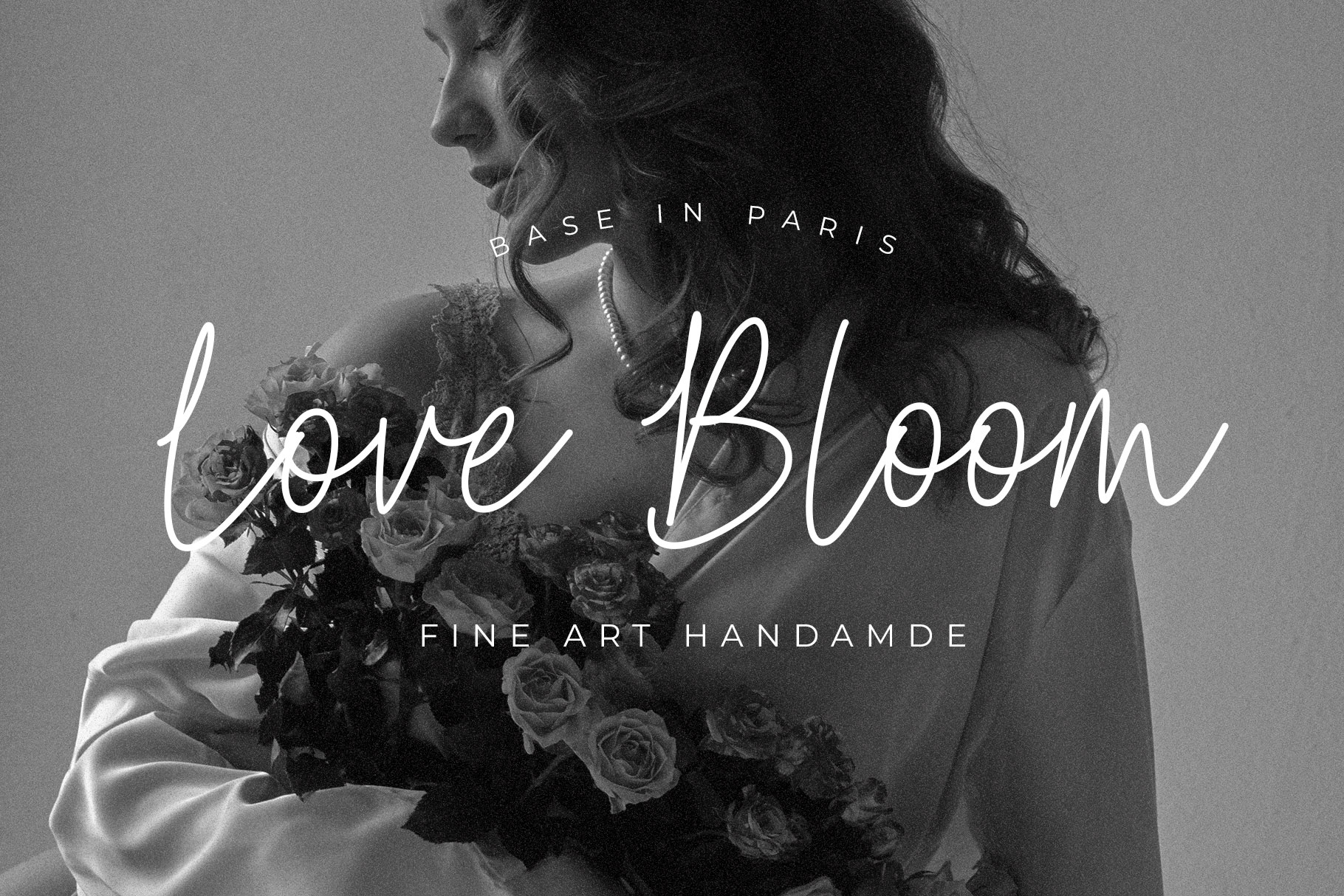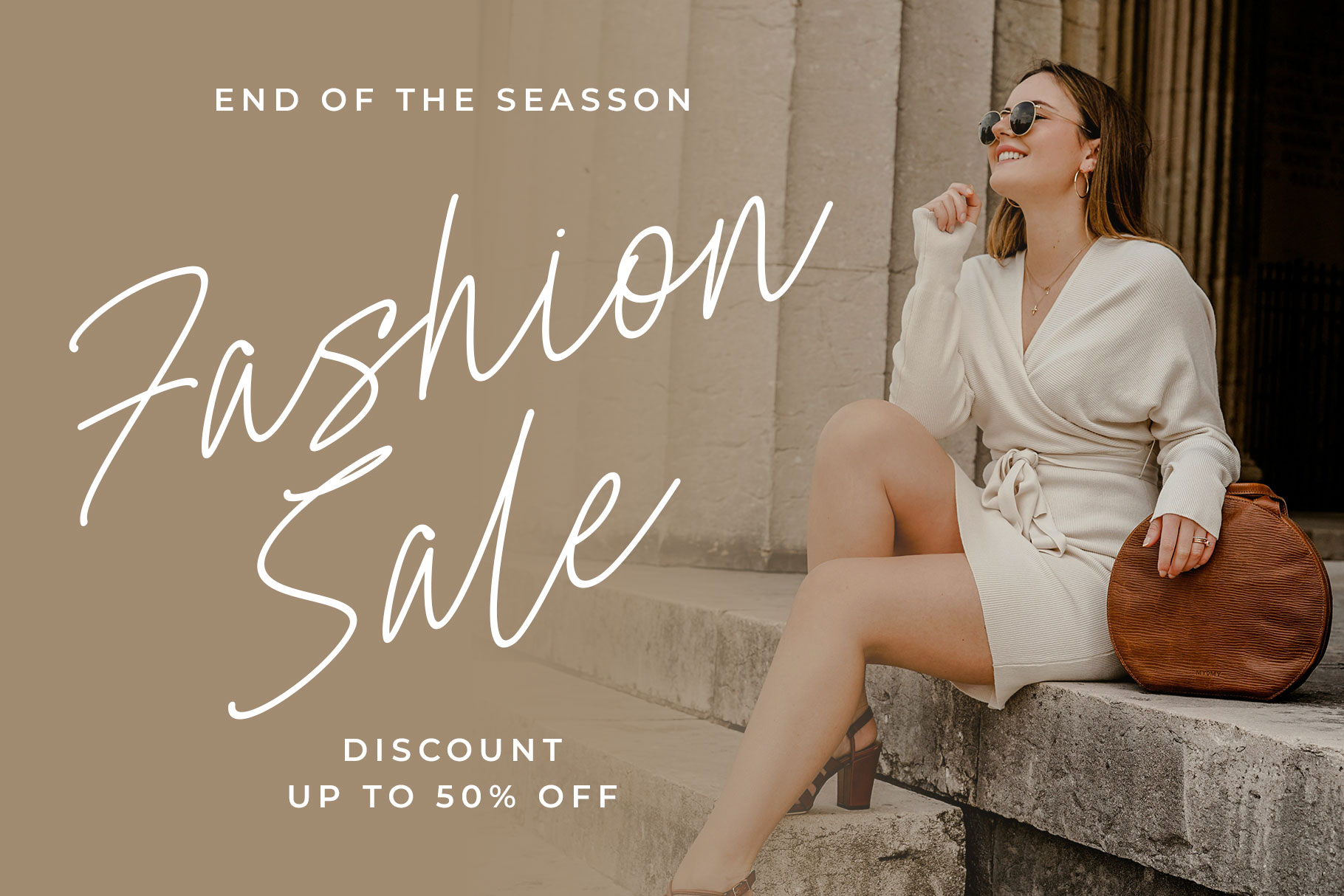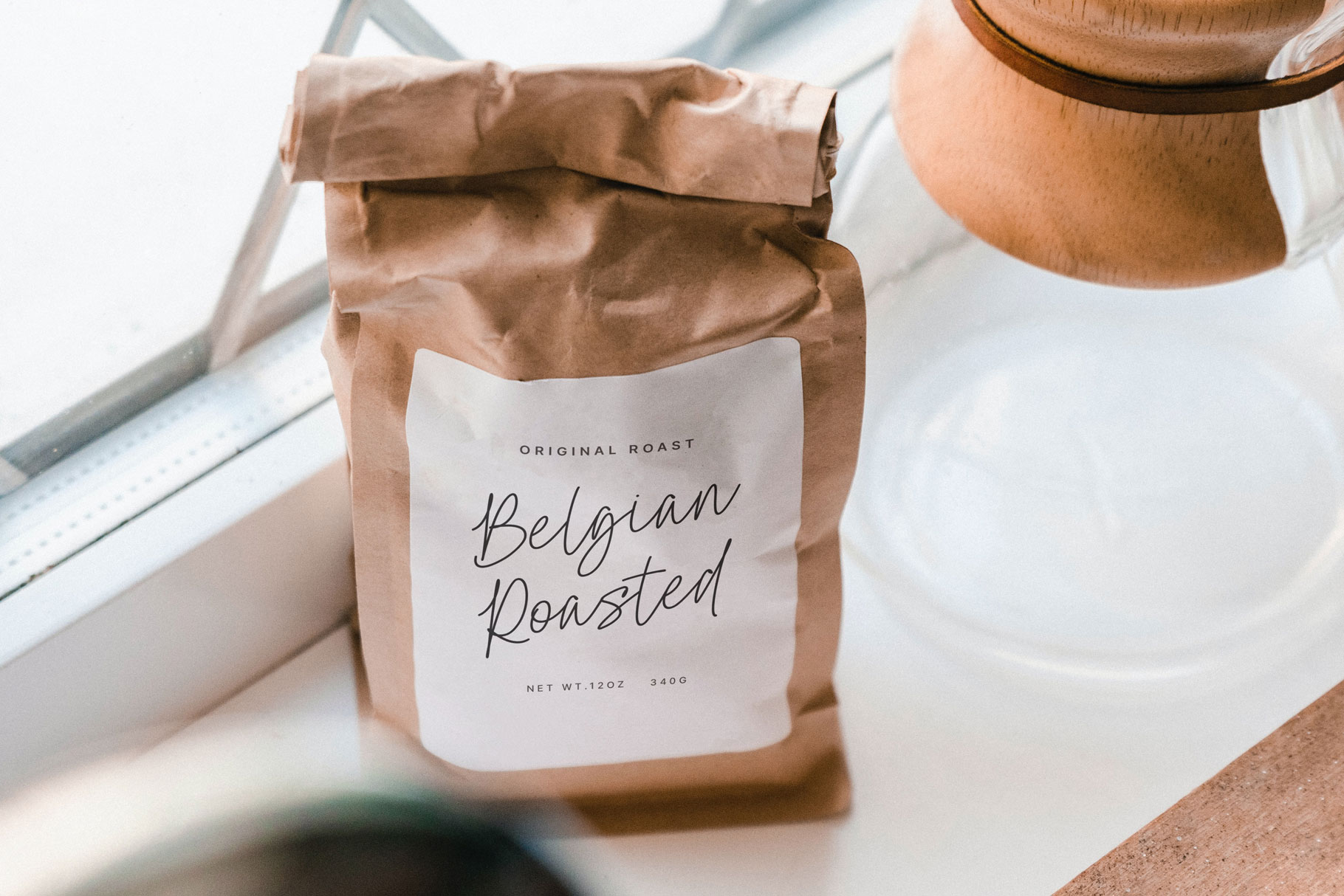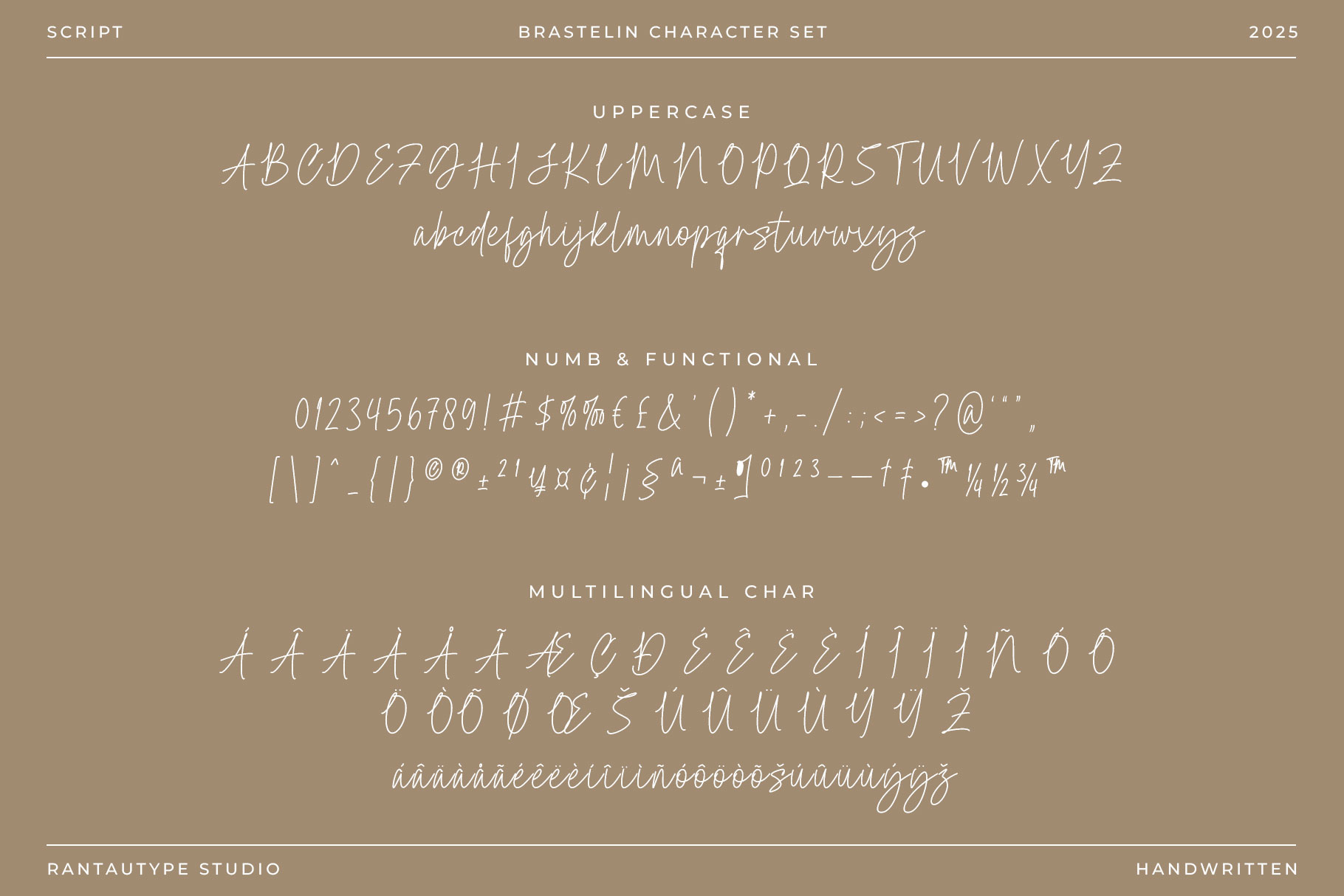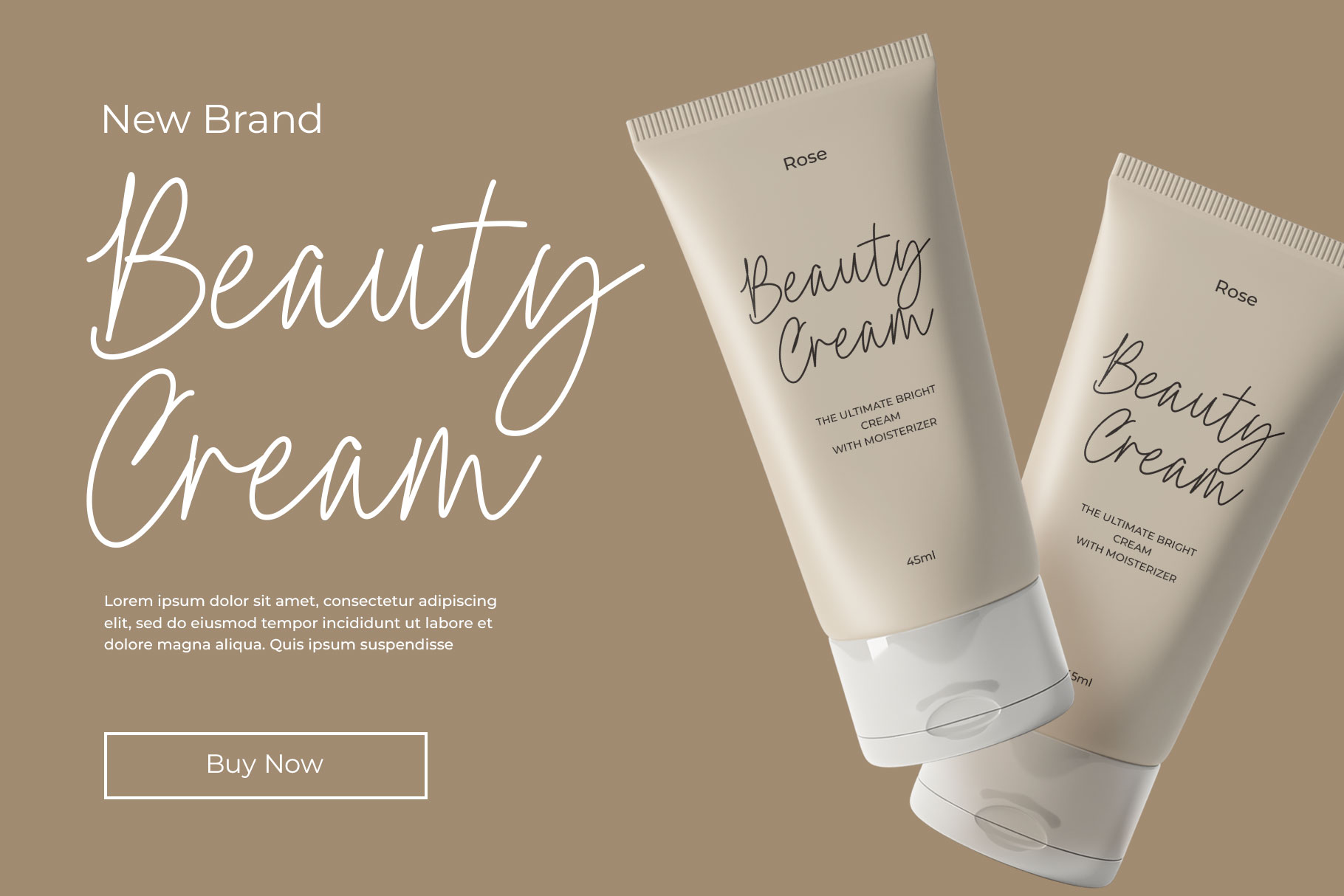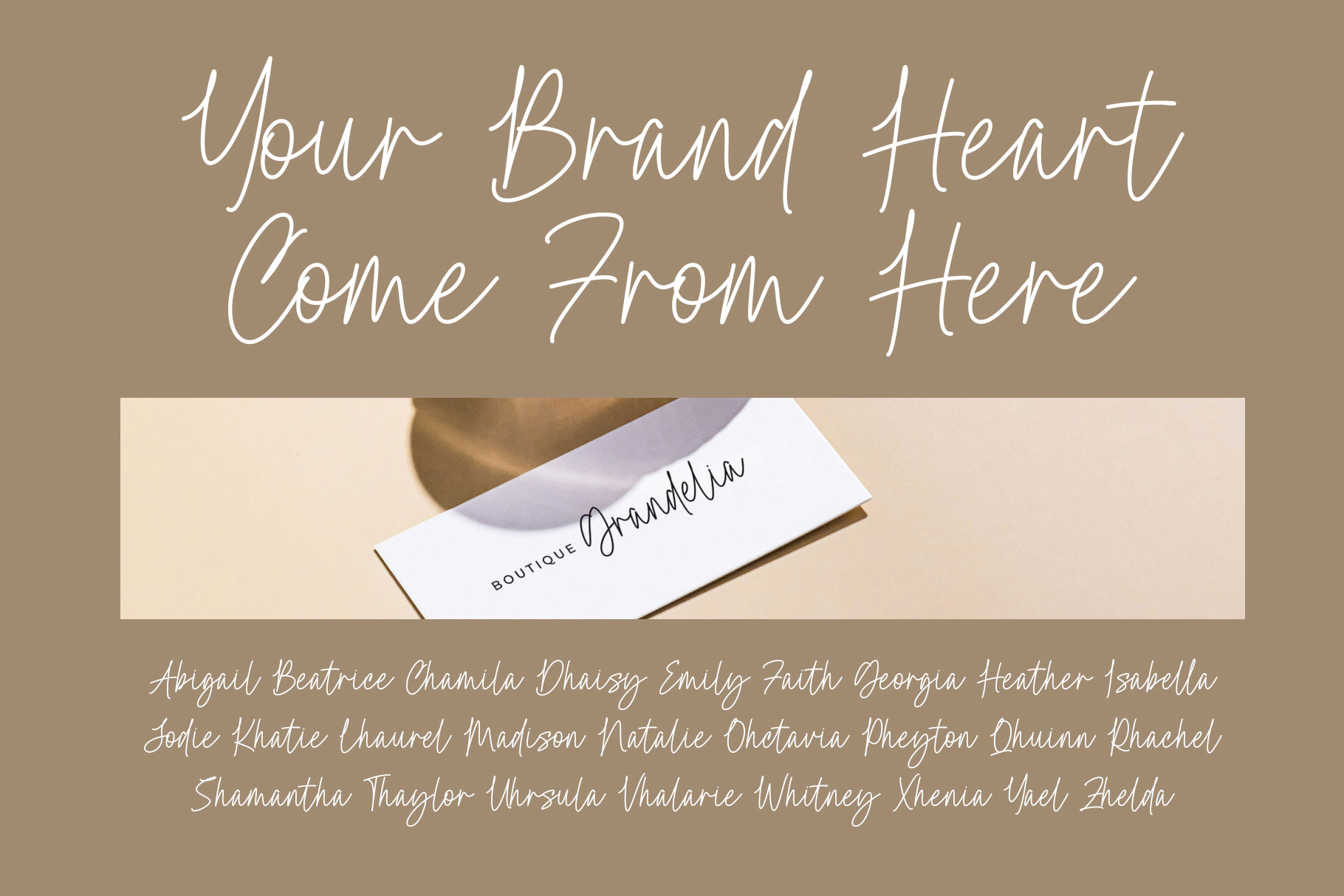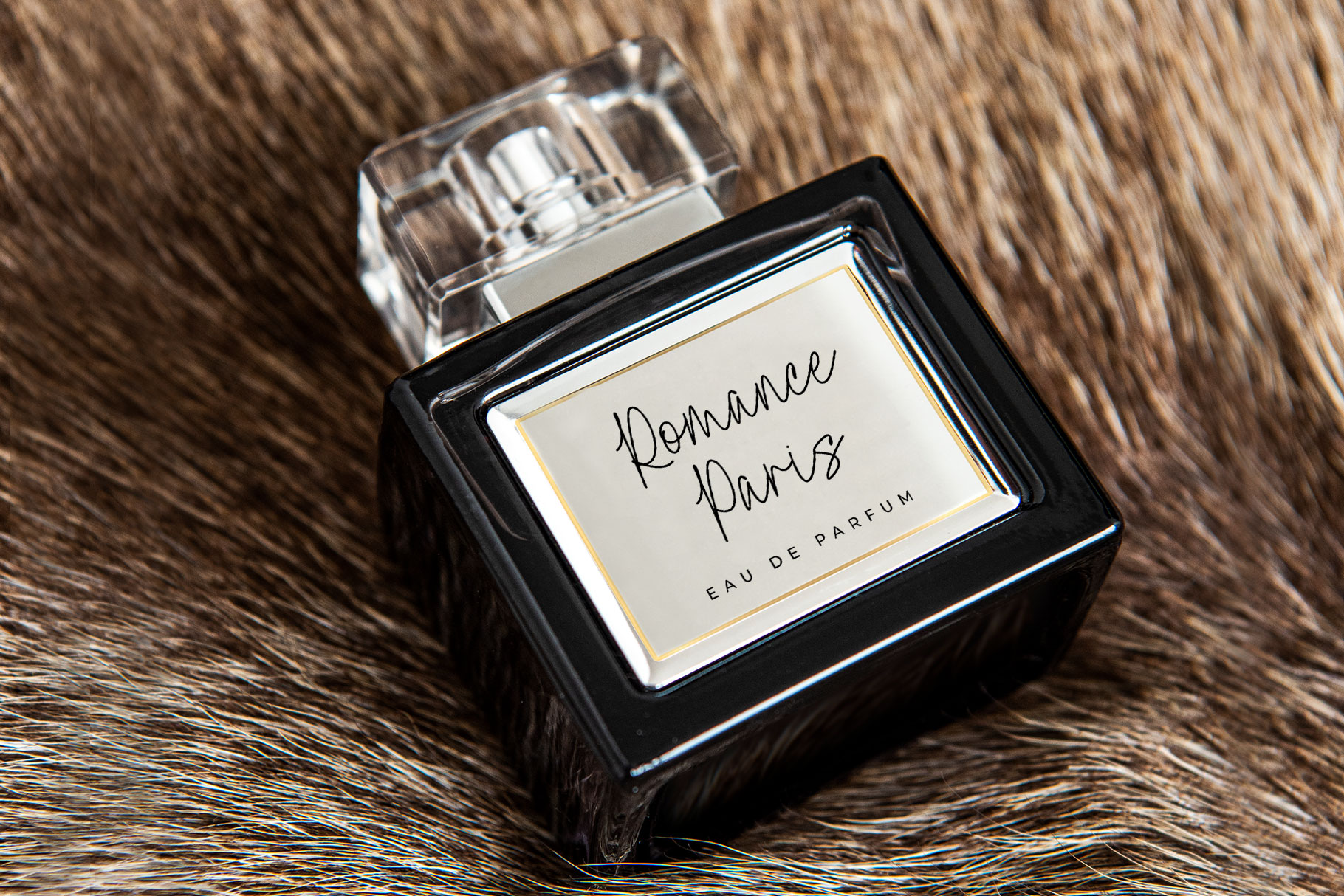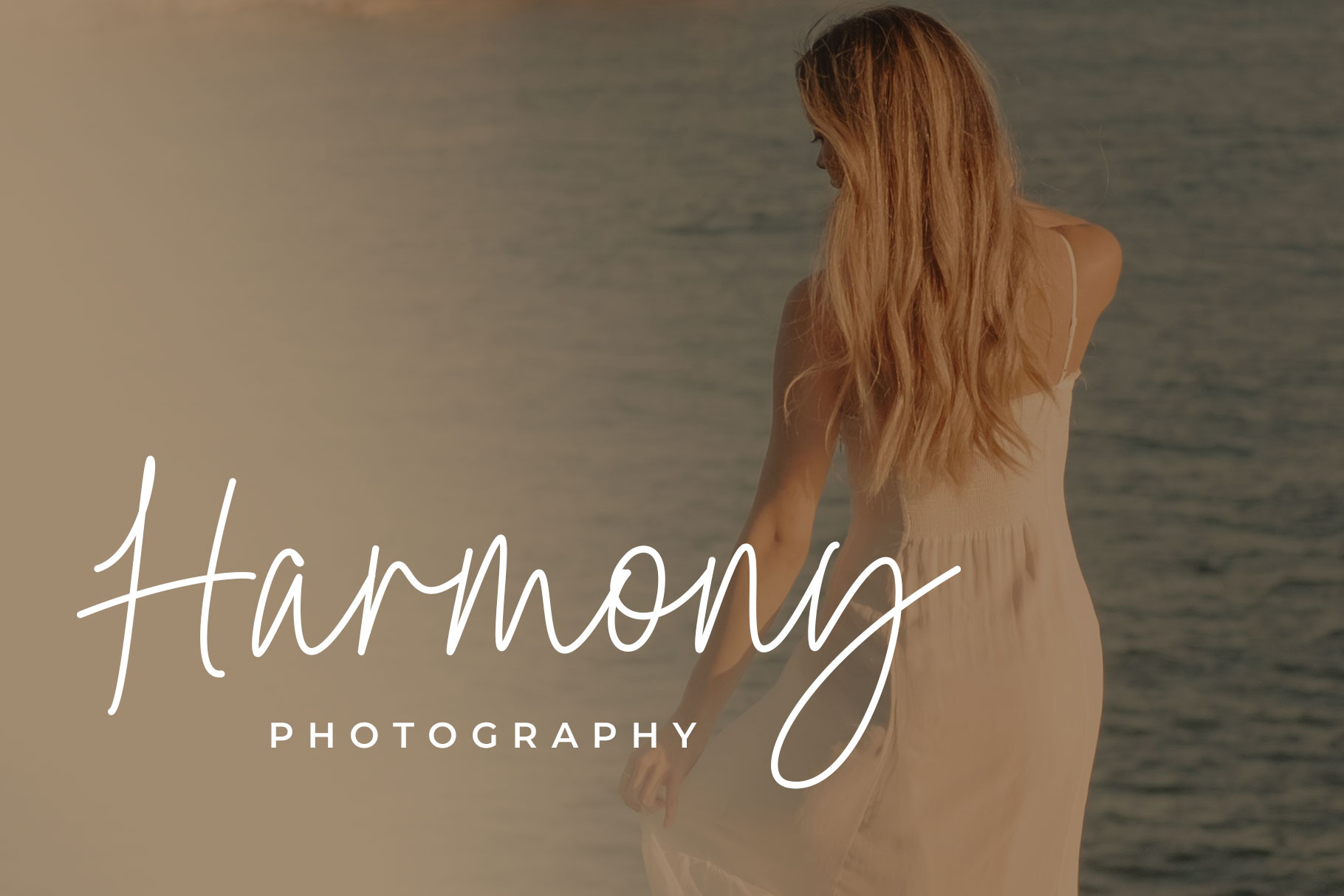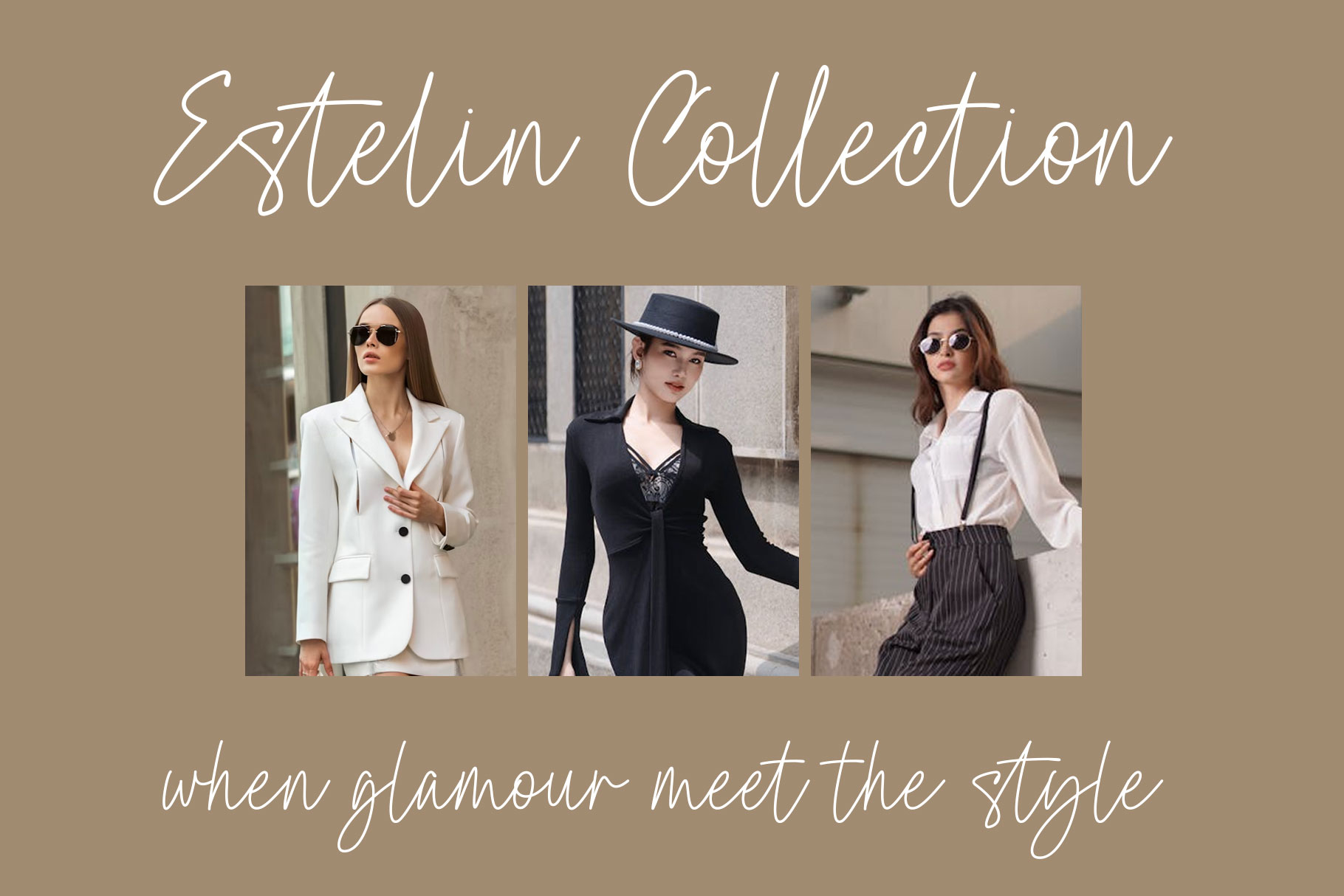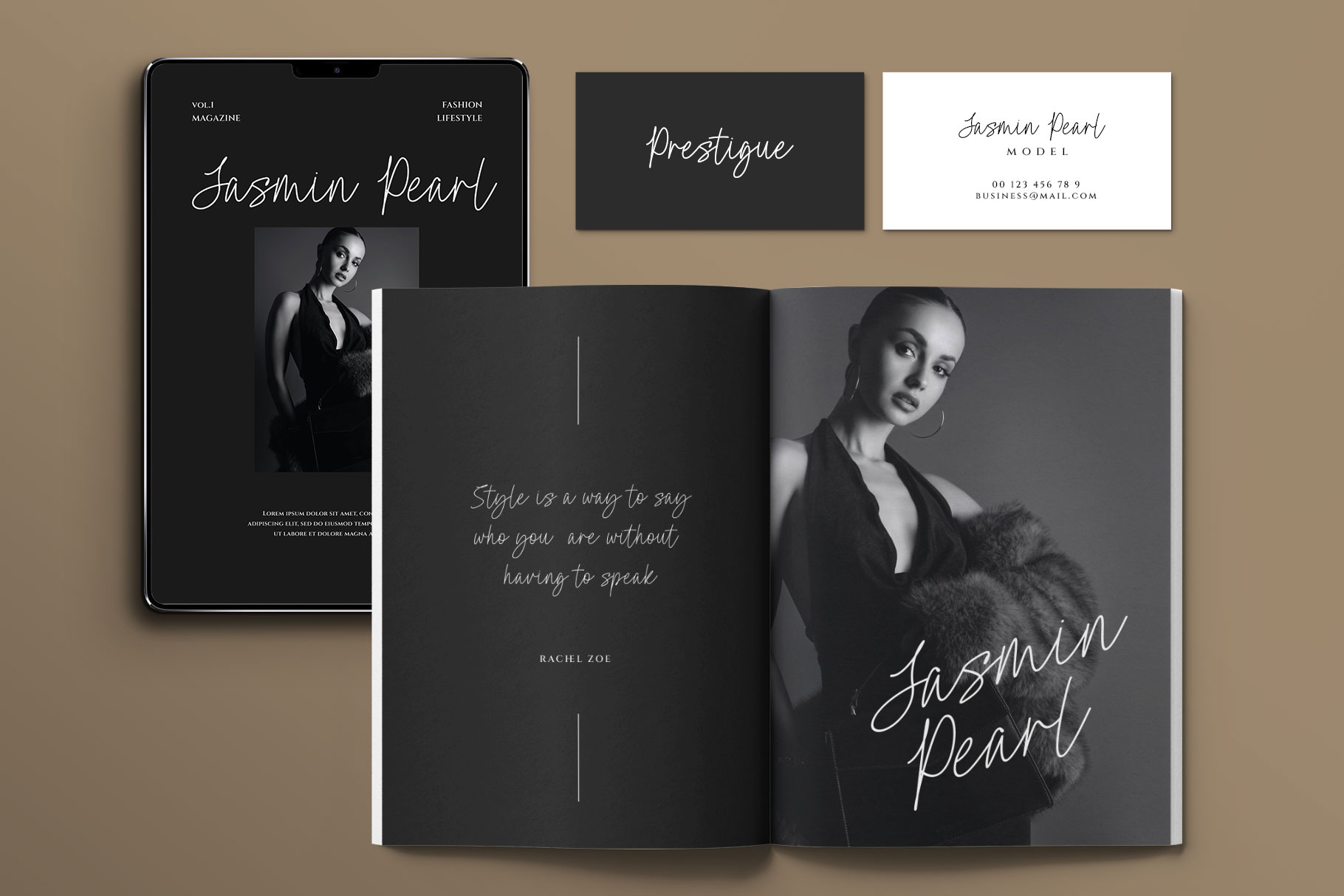
Brastelin Modern Monoline Font
Brastelin is modern Monoline Handwritten Font is a refined typeface that embraces grace with every elegant stroke. Designed with a consistent line weight, it offers a clean and sophisticated aesthetic.
Brastelin is a perfectly choice for any creative endeavor, creating, modern, lifestyle design such as logotype, title, cover, branding, invitations, wedding designs, display and magazine, social media posts, advertisements, printed quotes, product packaging, corporate brand, product designs, labels, photography, watermarks, special events and any other project with handwritten feel.